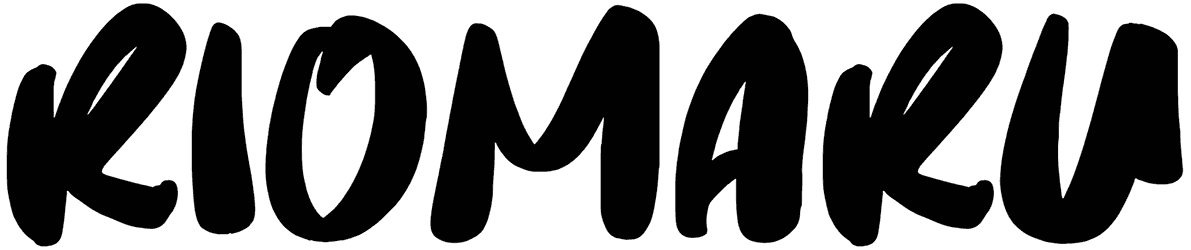
Riomaru Font
Riomaru is an all-caps script font that really looks great on every poster, brochure, gift card, greeting card, or social media post, and incredibly levels up their quality. This brush font can bring a sense of dynamism, personalization, vivacity, or sympathy to all of your artwork. Aside from the lack of numbers, it is still worth trying in editorial projects.